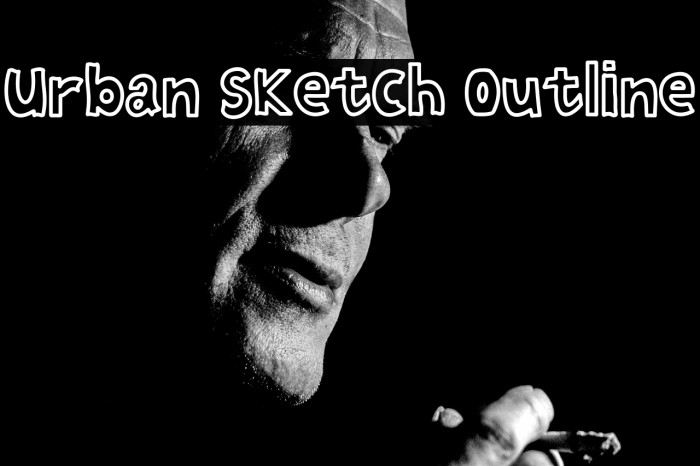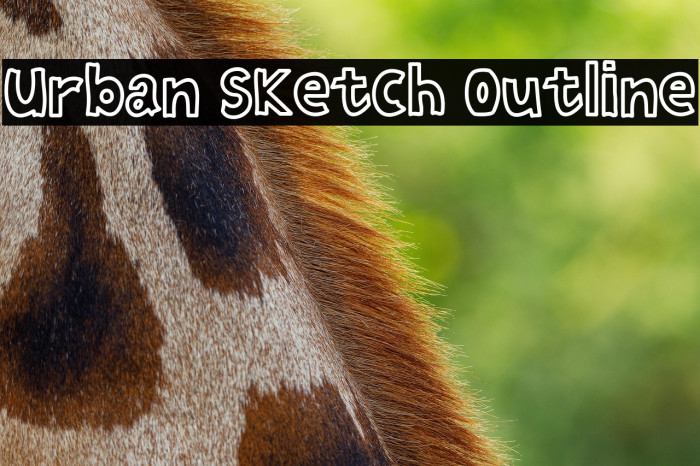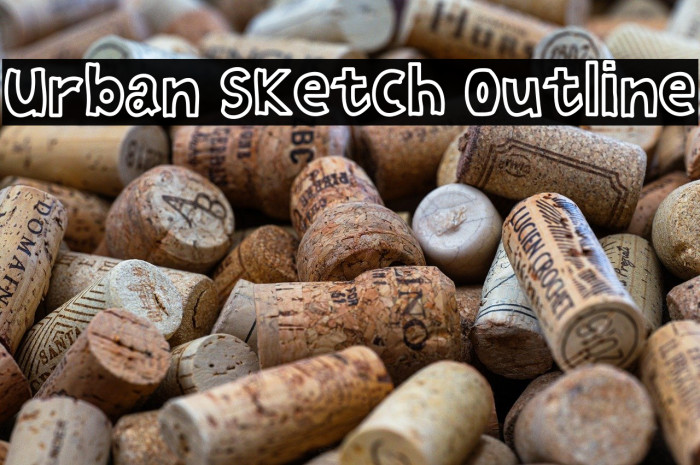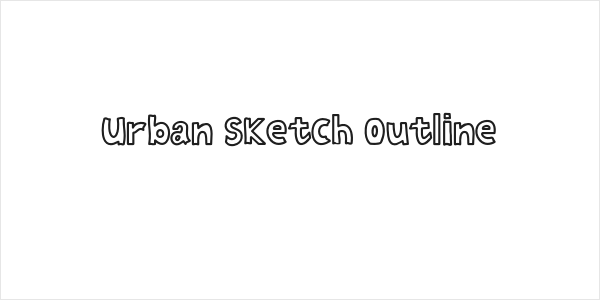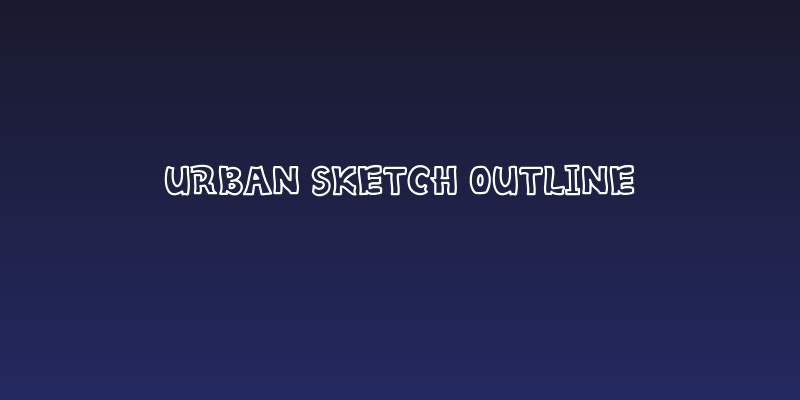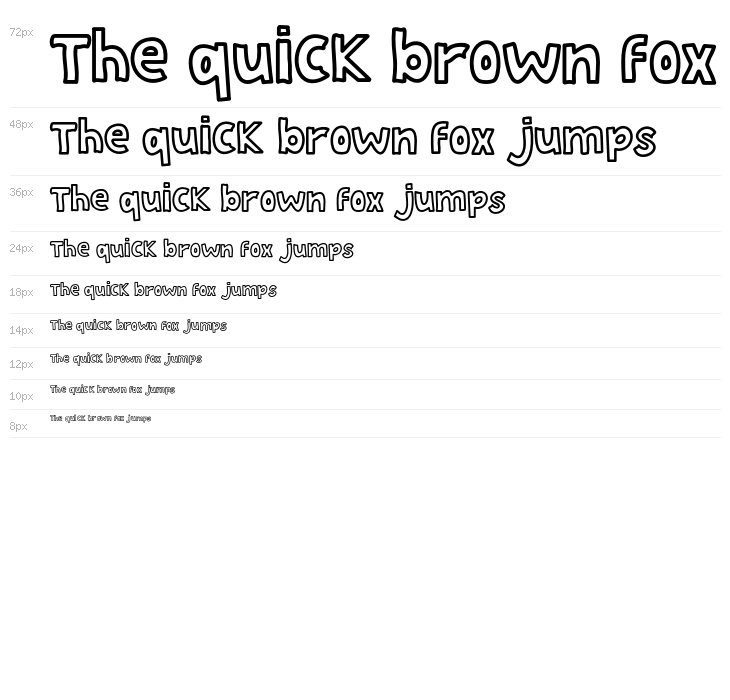
Urban Sketch Outline Font
Urban Sketch Outline Description
This font features a playful and artistic outline style, reminiscent of hand-drawn sketches. Each character is outlined with a bold, consistent stroke, giving it a unique and informal appearance. The uppercase and lowercase letters maintain a uniform height, while the numerals and special characters follow the same stylistic approach. The font's design is characterized by its whimsical and casual aesthetic, making it suitable for creative and informal projects. The spacing between characters is balanced, ensuring readability while maintaining its artistic flair.
| Proposed Projects | Ideal for children's books, comic strips, creative posters, and informal branding projects. |